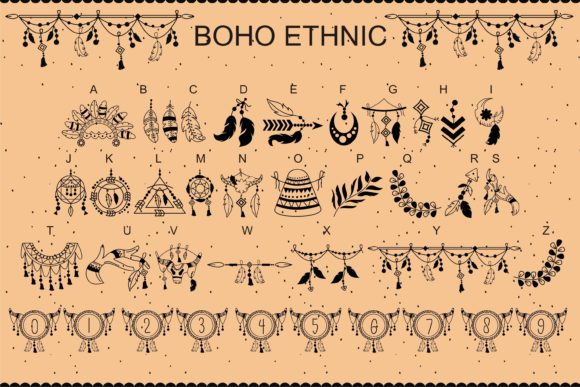
About Boho Ethnic Font
“Boho Ethnic” is a cool, creative, and useful dingbats font that can add a unique and artistic touch to your designs. Whether you’re working on projects related to fashion, travel, bohemian themes, or any other topic, this font can be an incredible asset to your font library.
The “Boho Ethnic” font features a collection of decorative symbols and icons inspired by bohemian and ethnic designs. These dingbats can be used to enhance various creative projects, including branding, packaging, posters, invitations, social media graphics, and more. The intricate and detailed nature of the symbols adds a touch of craftsmanship and cultural influence to your designs.
With its versatility, “Boho Ethnic” allows you to create visually engaging compositions by combining the dingbats with other fonts and design elements. The unique and artistic style of the font sets it apart and makes it suitable for projects that require a bohemian, free-spirited, or handcrafted aesthetic.
The symbols in “Boho Ethnic” can represent elements such as feathers, dreamcatchers, arrows, mandalas, bohemian patterns, and more. These icons can be used individually or combined to create patterns, borders, frames, and other decorative elements that add a distinctive flair to your designs.
Whether you’re designing for print or digital media, “Boho Ethnic” offers a wide range of possibilities for creative expression. It allows you to infuse your designs with a sense of cultural richness and artistic appeal. The font can be particularly effective in projects that aim to convey a bohemian lifestyle, travel experiences, or an appreciation for diverse cultures.
In summary, “Boho Ethnic” is a cool, creative, and useful dingbats font that adds a unique and artistic touch to your designs. Its collection of bohemian and ethnic-inspired symbols and icons can elevate your creations and give them a distinctive flair. Use this font to infuse your designs with a sense of cultural richness and creative expression, regardless of the topic or project at hand.